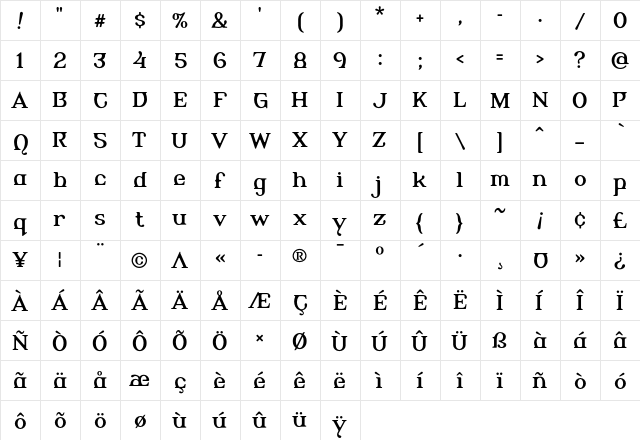
AlembicBeta-RegularOne Regular
Design Context for AlembicBeta-RegularOne Typeface
AlembicBeta-RegularOne is a composed and adaptable typeface that performs quietly and consistently across a wide range of design contexts.